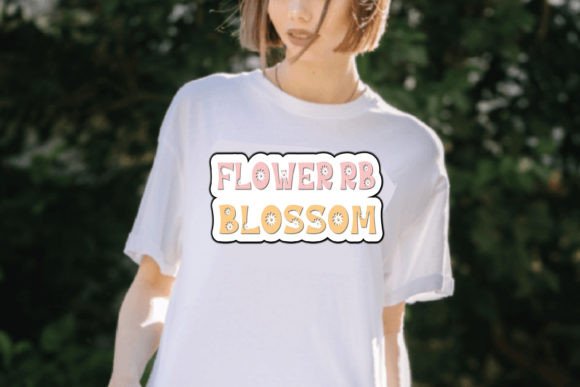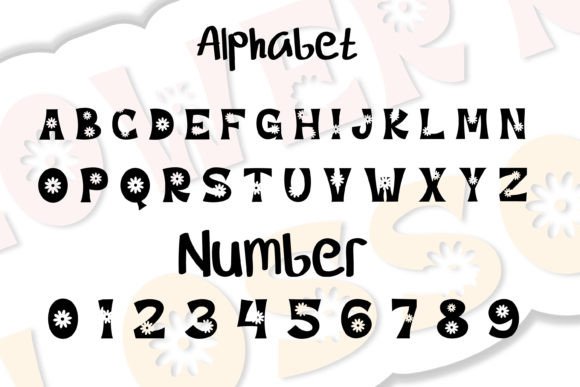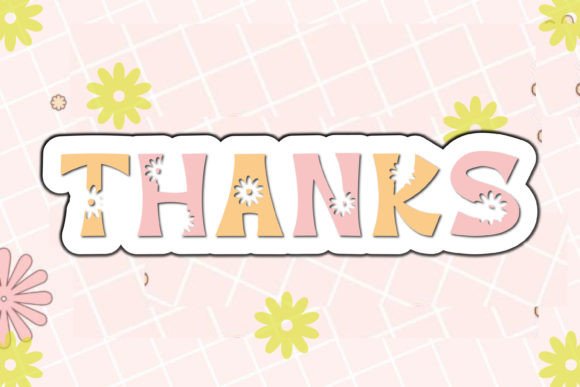
Introducing Flower Rb Blossom Font: Elevate Your Designs with Joy and Whimsy
Are you tired of using the same old fonts in your creative projects? Do you want to add a splash of vibrancy and personality to your designs? Look no further than the Flower Rb Blossom Font! This stunning color font is designed to bring joy and whimsy to your work, making it perfect for a wide range of applications, from branding initiatives and packaging designs to wedding invitations and more.
A Font that Embodies Joy and Whimsy
The Flower Rb Blossom Font is more than just a font – it’s an experience. Its playful, curly design is bound to put a smile on your face and inspire your creativity. With its bright, cheerful colors, this font is sure to add a touch of magic to any design. Whether you’re working on a logo, a headline, or a social media graphic, this font is sure to make your project stand out.
The Transformative Power of Flower Rb Blossom Font
So, what makes the Flower Rb Blossom Font so special? The answer lies in its transformative power. This font has the ability to elevate your designs and take them to the next level. Its playful, cheerful design is sure to add a touch of personality to any project, making it more engaging and memorable.